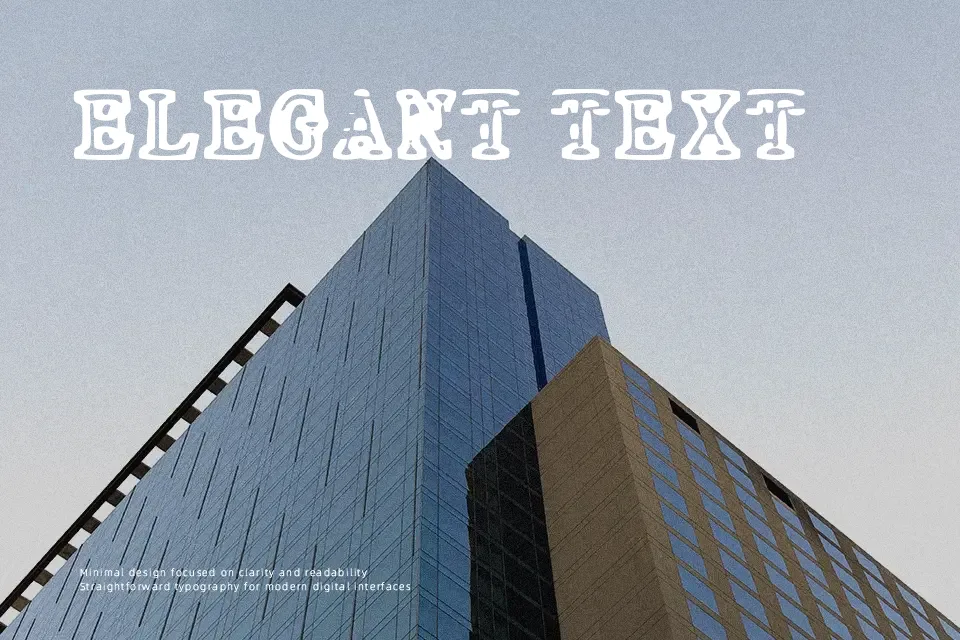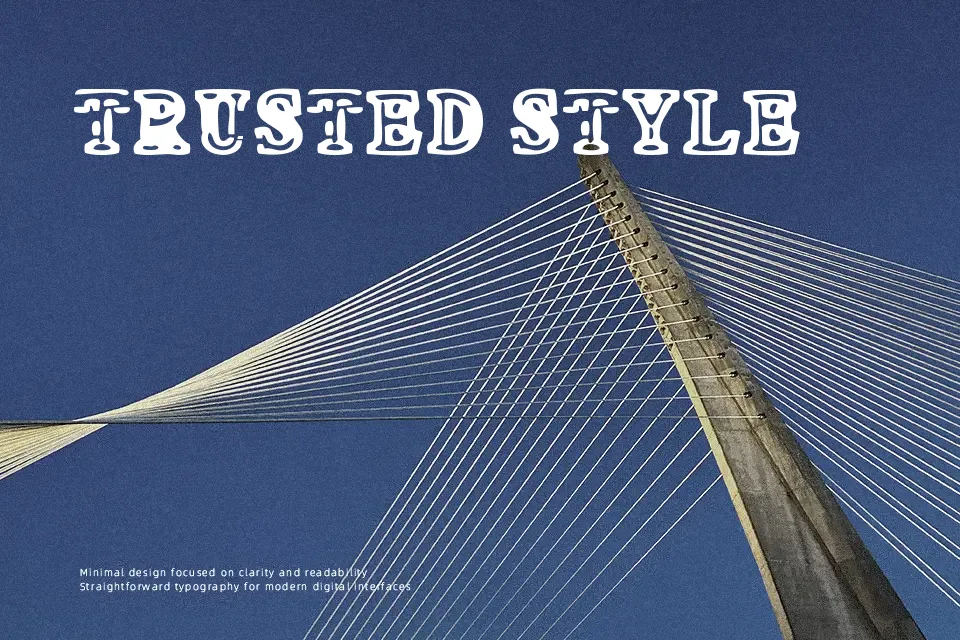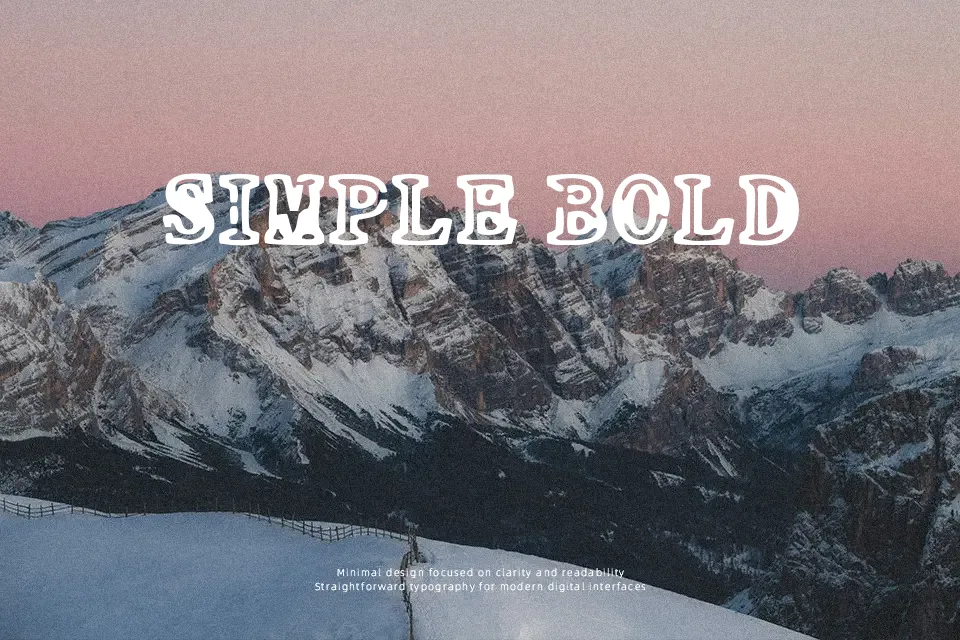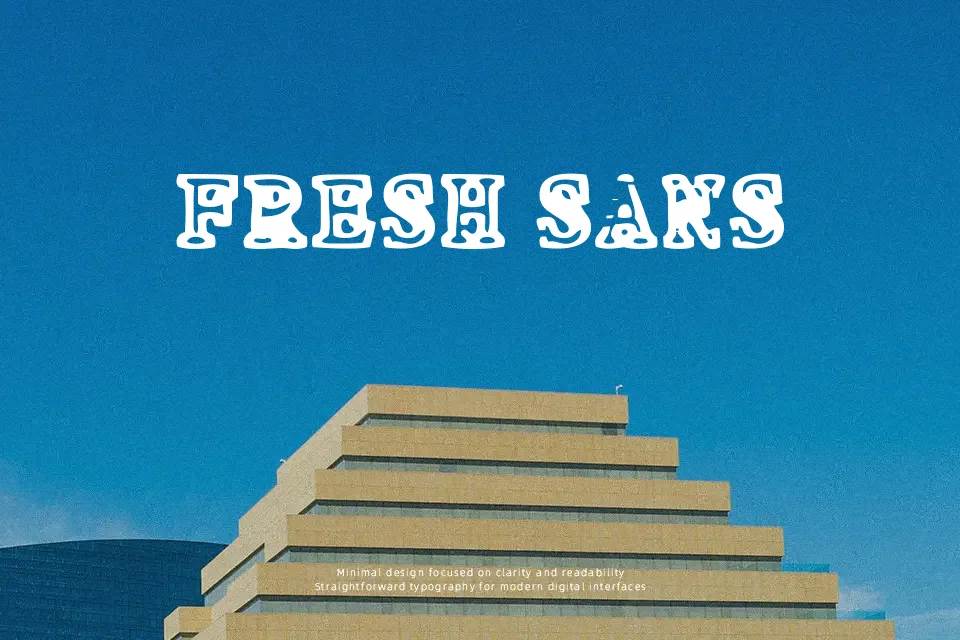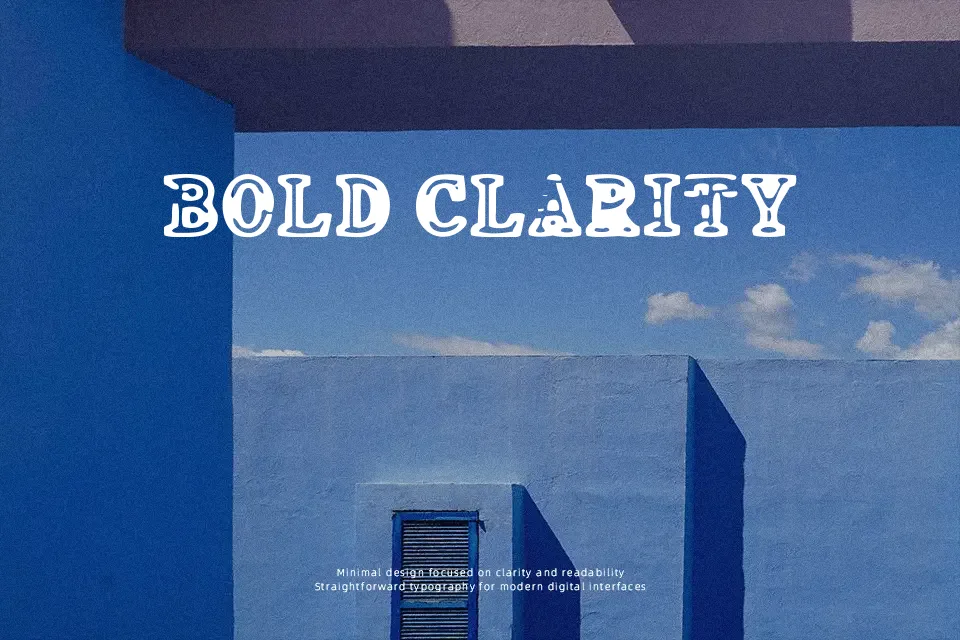
Neo Protein Font
Jagged, eroded letterforms define this decorative display font, with uneven stroke edges that create a worn, textured appearance. The characters appear tightly spaced, forming dense word shapes that feel compact and heavy. Stroke contrast is minimal, but the rough detailing introduces visual noise that becomes part of its style. Uppercase letters maintain consistent proportions, while punctuation follows the same distressed treatment. It reads best in large sizes where the texture remains visible; smaller text quickly loses definition. This makes it a strong choice for bold visual statements, though less effective for continuous reading.
Best For: poster titles,album cover typography,grunge-style branding,packaging headlines
Not Ideal For: long paragraph text,small interface labels,formal business documents,dense editorial layouts
Perfect for headline, logo, and packaging, with a artistic and decorative style.